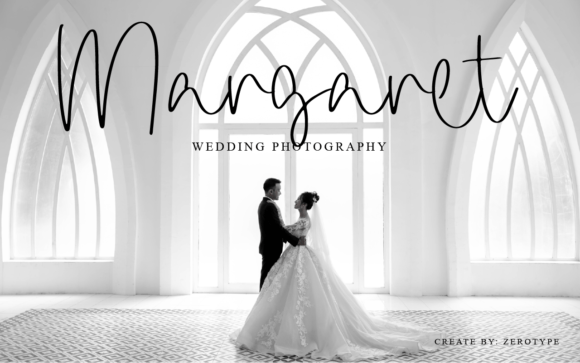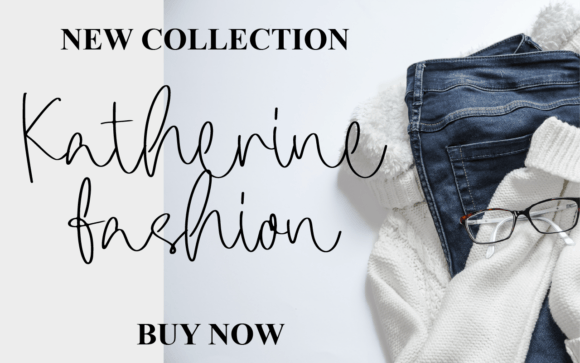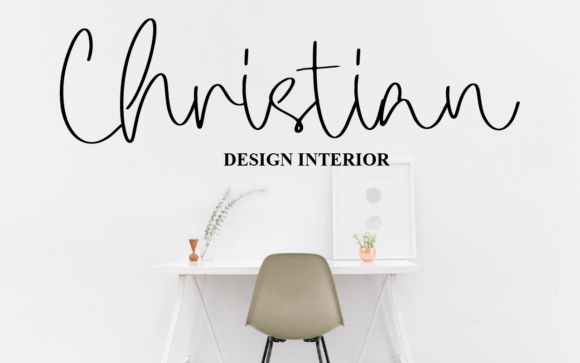
Introduction to Jennifer Shyanne Font
Do you remember that moment when you’re working on a creative project and you need that perfect font to elevate it to the next level? The one that adds a touch of sophistication and elegance, making your design truly stand out? For many designers, that moment is all about discovering the right font, and one that consistently delivers is the Jennifer Shyanne Font. This stunning script font is a true masterpiece, with its intricate swirls and flourishes that lend an air of refinement to any project.
Whether you’re working on a high-end design project or simply need a beautiful font for a personal creative endeavor, Jennifer Shyanne Font is an invaluable resource. Its flowing lines and graceful curves are not only visually stunning but also incredibly versatile, making it an ideal choice for a wide range of design applications. Plus, with its transparent background, you can easily integrate it into any design without worrying about distracting elements.
As a free download, Jennifer Shyanne Font is a must-have for any designer looking to add a touch of high-quality elegance to their projects. Its beauty and sophistication make it a timeless choice, perfect for designs that require a level of sophistication and refinement.
Key Features of Jennifer Shyanne Font
- High-quality, professional design ideal for creative projects, including digital art, graphics, and web design.
- Features a high-resolution design (up to 300 DPI) for crisp and clear display on various devices and screens.
- Unique, elegant, and modern style that sets it apart from other fonts, making it a great addition to any design project.
- Perfect for use in a variety of contexts, including logos, branding, typography, and more.
Honest Review: Jennifer Shyanne Font
I recently came across the Jennifer Shyanne Font, and I must say it’s a lovely addition to any creative project. The font’s elegant and cursive design makes it perfect for projects that require a touch of sophistication.
- What works well:
- ✨ The high-quality design is suitable for a wide range of creative projects, from invitations to social media graphics.
- ✨ The transparent background makes it easy to customize and place the font over different images or colors.
However, I did notice a few limitations:
- ⚠️ The font may not be suitable for projects that require a bold or condensed font style.
- ⚠️ The free version may not include all the font styles and weights, which could be a limitation for designers who need more versatility.
Overall, I’m impressed with the Jennifer Shyanne Font. It’s a high-quality design resource that’s perfect for designers who want to add a touch of elegance to their creative projects. While it may have some limitations, it’s still a great option for designers on a budget.
How to Use Jennifer Shyanne Font
The Jennifer Shyanne Font is a high-quality design resource ideal for creative projects that require a touch of elegance. This font features a transparent background and is available for free download, making it an excellent choice for designers and artists.
Tips for Getting the Most Out of Jennifer Shyanne Font
To get the most out of Jennifer Shyanne Font, consider the following tips:
- Use Jennifer Shyanne Font for headings and titles to add a touch of elegance to your design.
- Combine Jennifer Shyanne Font with other high-quality design resources to create a cohesive and professional look.